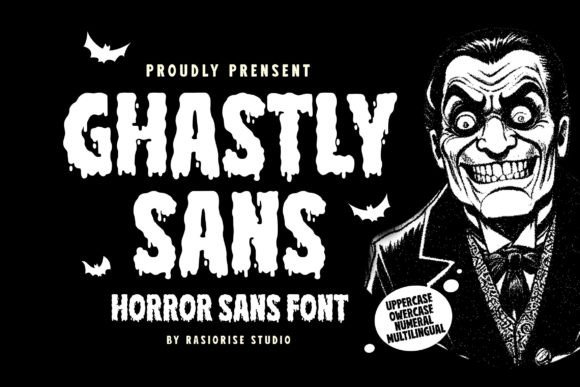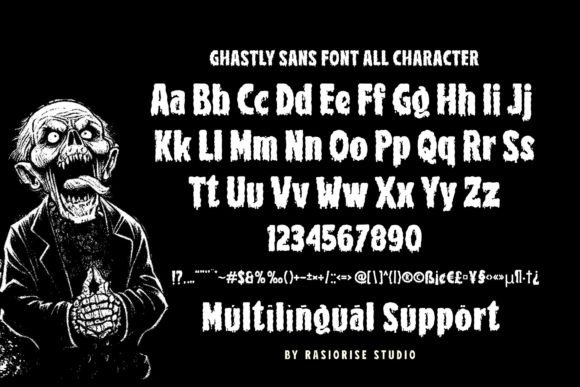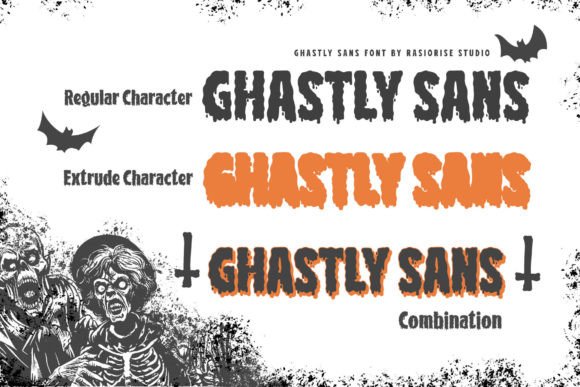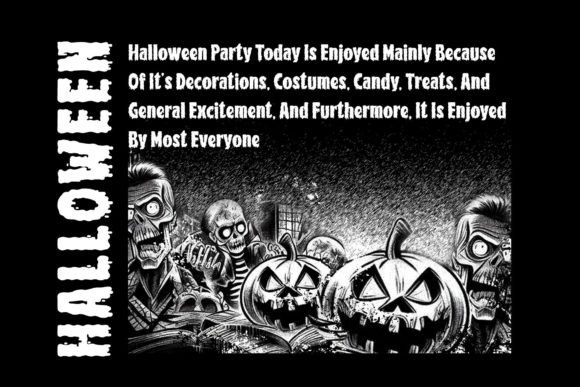
Ghastly Sans Font
About the Ghastly Sans Font
Get ready to be inspired by Ghastly Sans Font, a fresh and dynamic typeface for modern creators. Ghastly Sans has been released for those of you who are looking for a Halloween and Horror Sans Type font, The font is inspired by the Comic and Headline Sans Serif font with hand drawings dripping freestyle with a few combined to turn them into a bit of a horror style. Unleash your creativity at a Halloween party with Ghastly Sans Font, perfect for adding a Horror, Creepy touch to any project!
Ghastly Sans Font is very suitable for Logotype, Book covers Halloween party invitations, Gift cards, Greeting cards, posters, Merchandise, Packaging Label, Badge/Emblem Logo, and much more.
Ghastly Sans Font Usage Examples
Ghastly Sans Font Example